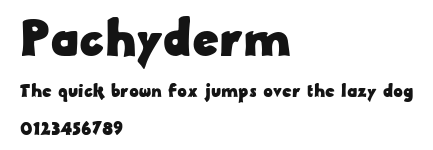
• Font Name: Pachyderm
• Full Font Name: Pachyderm
About Pachyderm.ttf
Pachyderm.ttf is a modern, elegant sans-serif font designed for ultimate readability and visual harmony. Perfect for branding, headlines, web design, and print materials.